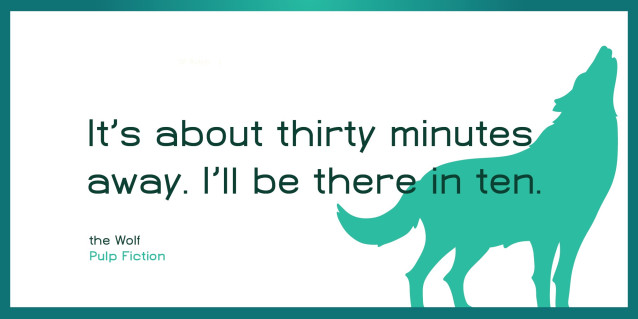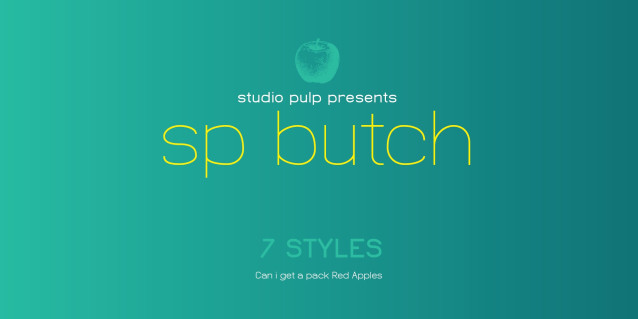
SP Butch Lite Font
SP Butch Font, a masterfully crafted sans serif font designed in 2023 by Studio Pulp. Drawing inspiration from the timeless aesthetics of the cinematic classic “Pulp Fiction” (1996), SP Butch exudes the fearlessness and style of the iconic character that lends it its name.
This striking typeface, developed with an eye for detail and craftsmanship, offers versatility that seamlessly aligns with various design projects. The seven carefully balanced weights provide you with the freedom to unleash your creativity, while the clear, open shapes maximize readability.
Anchored in a sleek grid design, SP Butch embodies modern minimalism and accessible elegance. Whether you’re working on web design, graphic design, or print materials, this font adds a touch of timeless class to your creations.
Let yourself be inspired by the seamless fusion of functionality and aesthetics in SP Butch. Designed to meet the demands of 2023, this font brings a contemporary flair to your projects while remaining true to Studio Pulp’s legacy of dedication to quality and innovation. Transform your typographic landscape with SP Butch and leave a lasting impression.